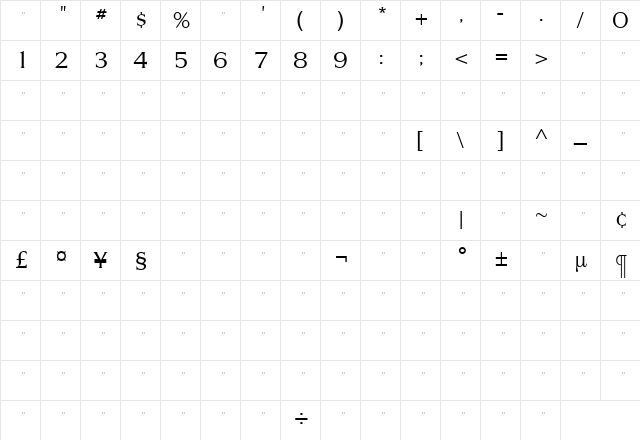
SilveradoLightTab Roman
Complete SilveradoLightTab Roman glyph index. Displaying only characters natively supported by SilveradoLightTab Roman font.
Design Context for SilveradoLightTab
SilveradoLightTab is a composed and adaptable typeface that performs quietly and consistently across a wide range of design contexts. Its slender proportions lend an understated elegance to any composition.